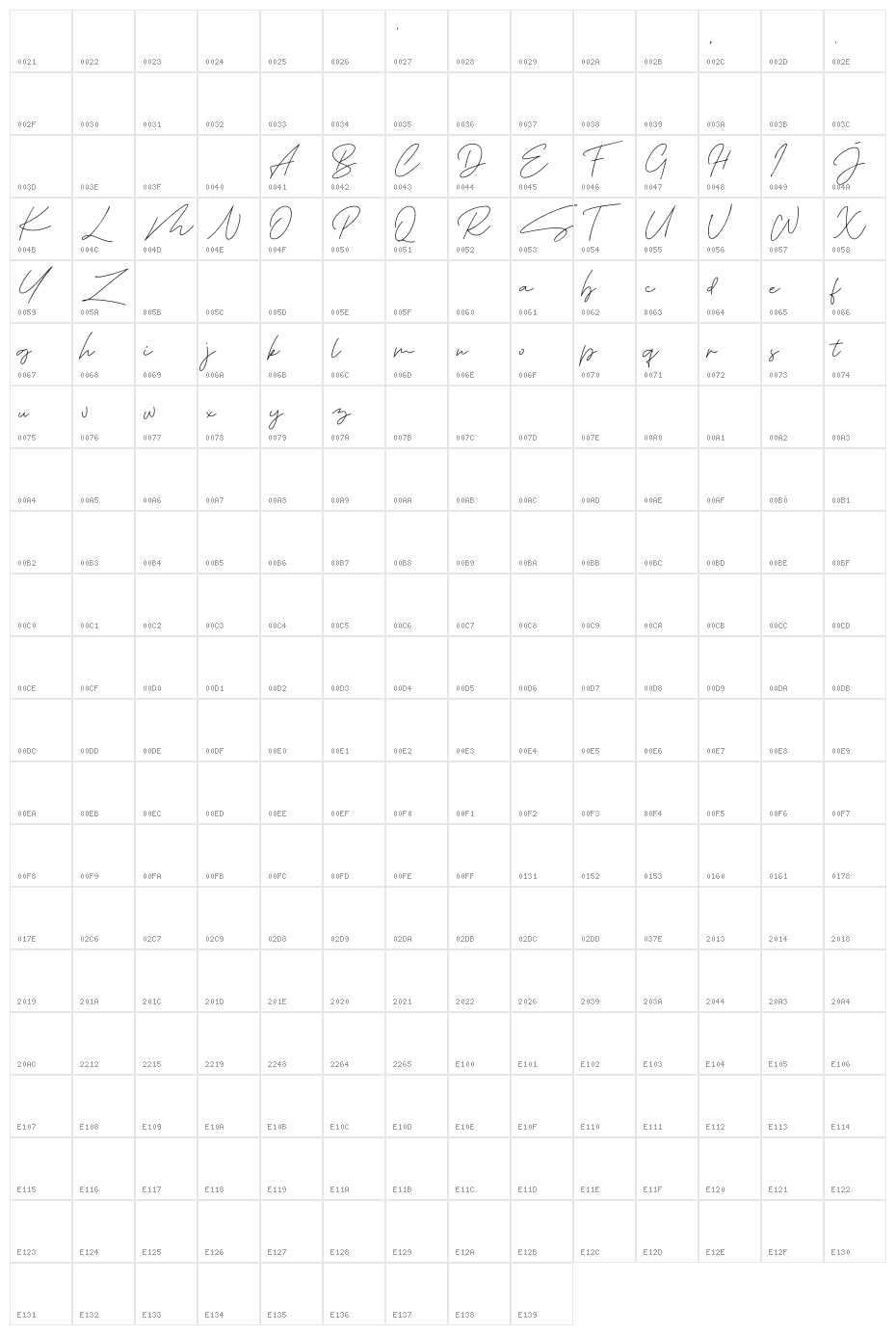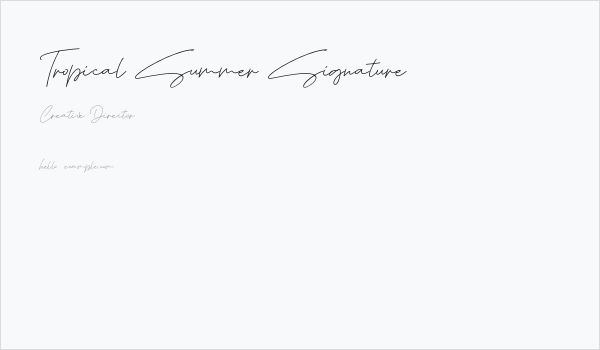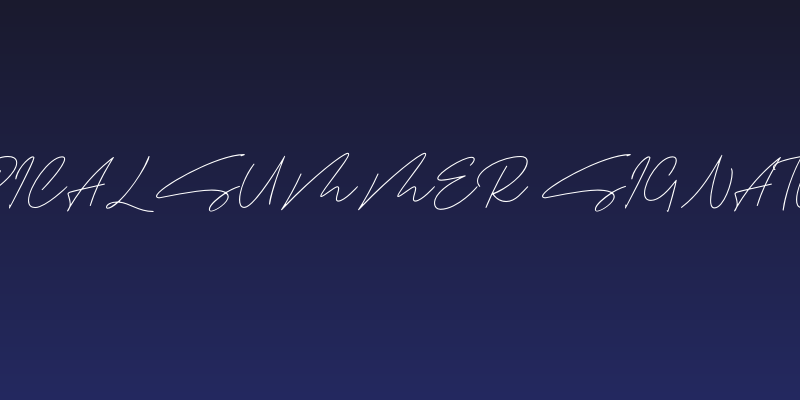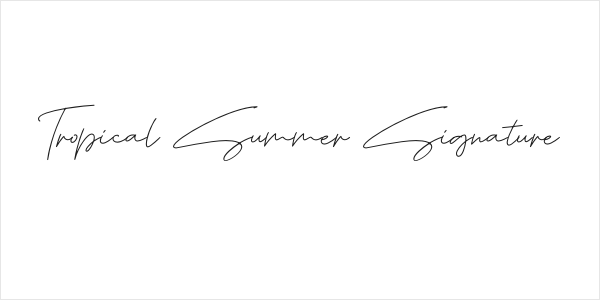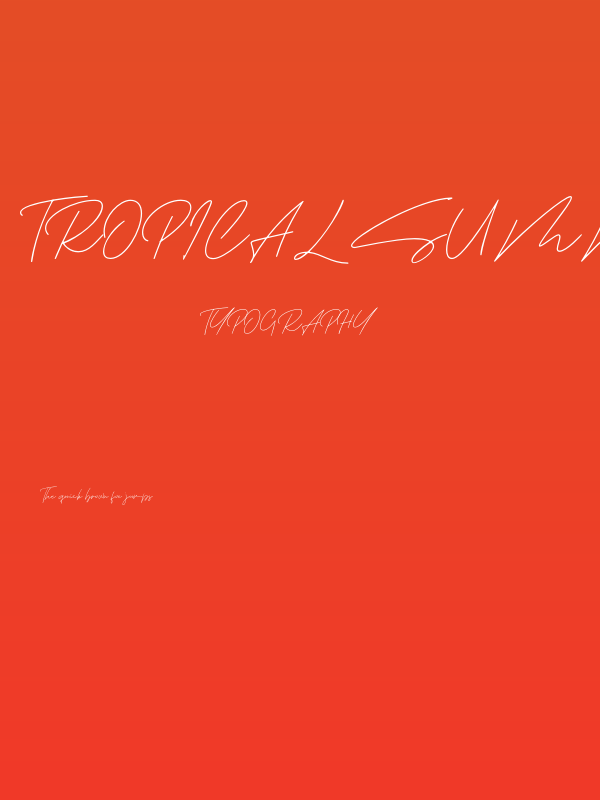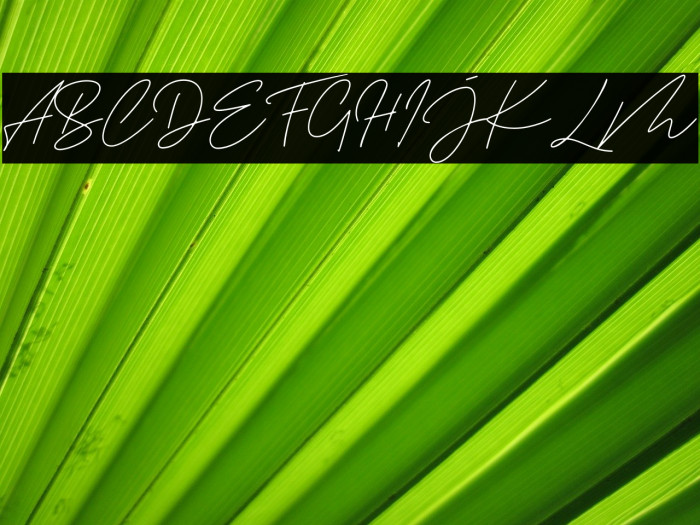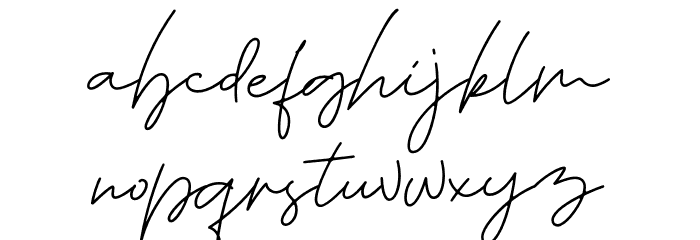
Tropical Summer Signature Font
Tropical Summer Signature Description
This font exudes a relaxed and breezy vibe, reminiscent of a tropical summer day. The script is fluid and elegant, with each letter seamlessly connecting to the next. The uppercase letters are tall and slightly slanted, giving them a sophisticated yet casual appearance. The lowercase letters maintain a consistent flow, enhancing the overall harmony of the design. The strokes are thin and delicate, adding to the airy feel of the font. This style is perfect for conveying a sense of elegance and ease, making it ideal for projects that require a touch of sophistication and warmth.
| Use Case | Logos, Invitations, Social Media |
| Proposed Projects | Ideal for wedding invitations, greeting cards, branding, and social media graphics. |